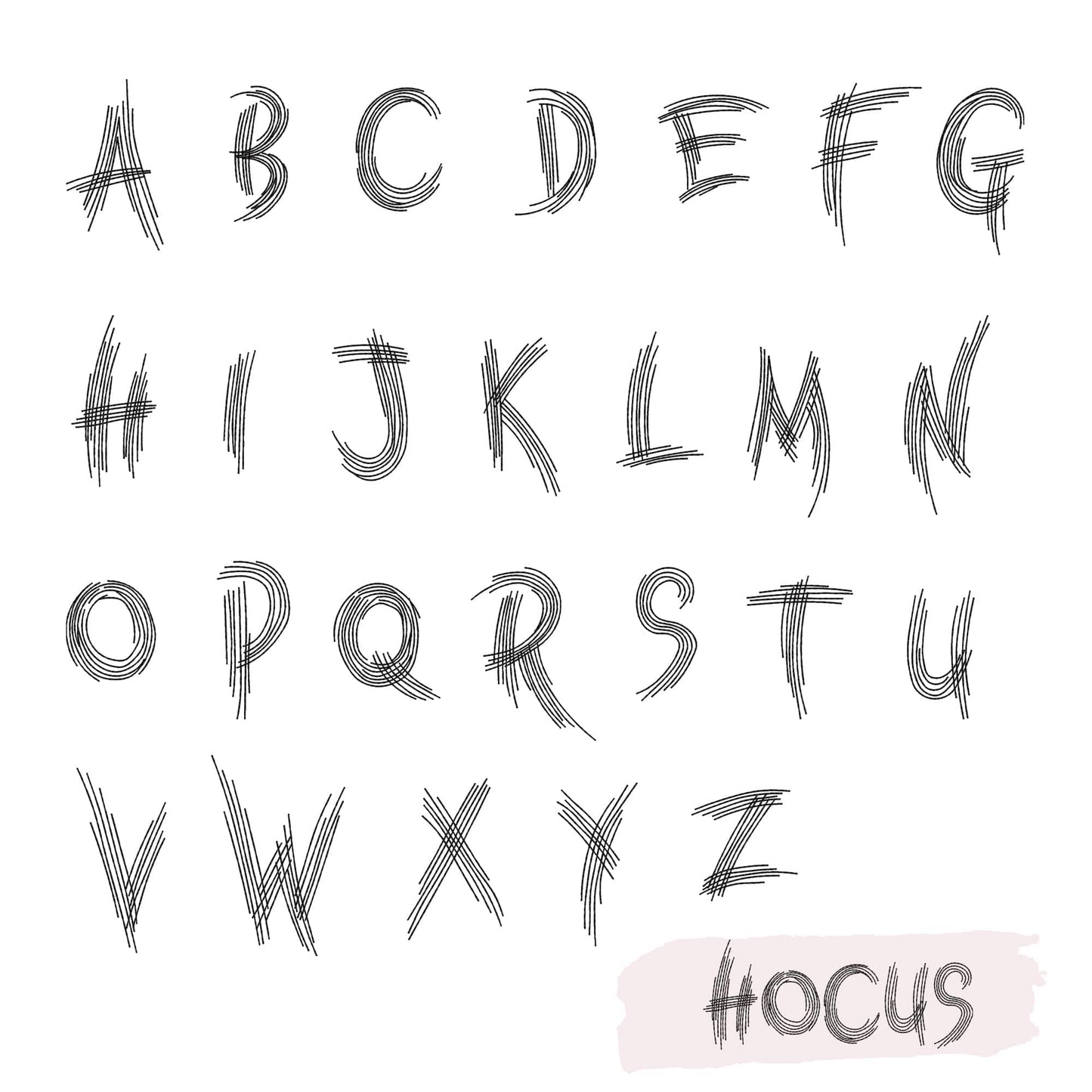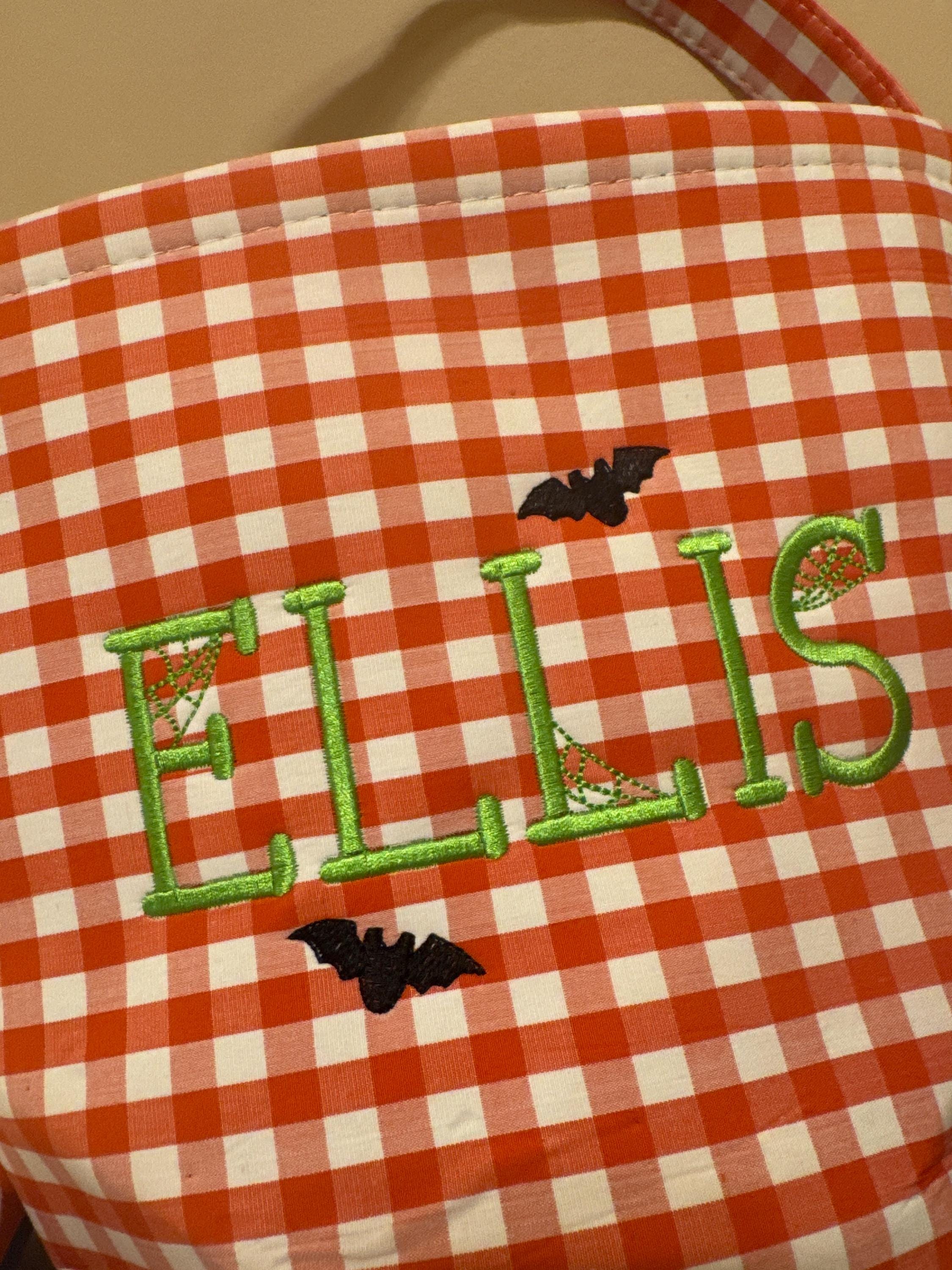
7 Halloween embroidery fonts bundle
1️⃣ Boo: 5 SIZES - 1", 1.5", 2", 2.5", 3"
2️⃣ Boo-Jee: 5 SIZES - 1", 1.5", 2", 2.5", 3"
3️⃣ Ghosty: 5 SIZES - 1", 1.5", 2", 2.5", 3"
4️⃣ Ghosty Up: 5 SIZES - 1", 1.5", 2", 2.5", 3"
5️⃣ Hocus: 3 SIZES - 1.5", 2", 2.5"
6️⃣ Scary: 4 SIZES - 1.5", 2", 2.5", 3"
7️⃣ Spooky: 5 SIZES - 1", 1.5", 2", 2.5", 3"
This machine embroidery fonts bundle includes 7 Halloween font styles for spooky shirts, trick-or-treat bags, towels, party items, gifts, and seasonal decor.
A strong choice for Halloween makers who want playful lettering for costumes, party pieces, festive gifts, and custom seasonal embroidery.